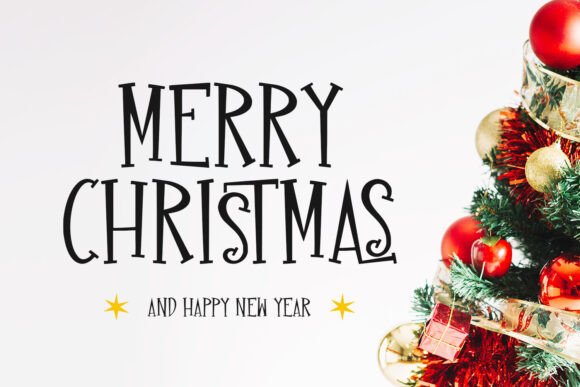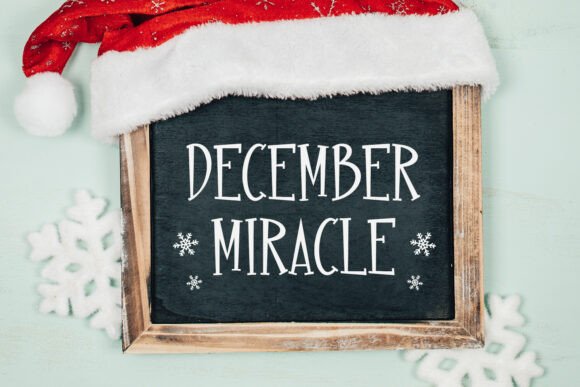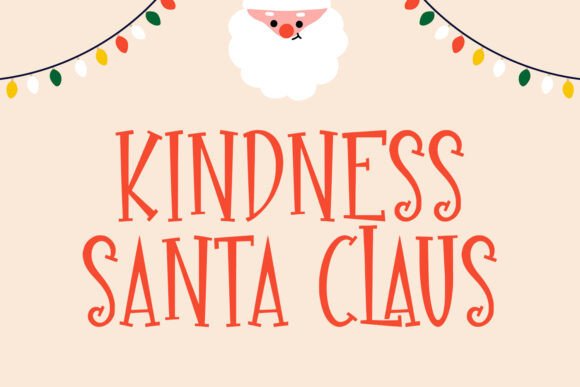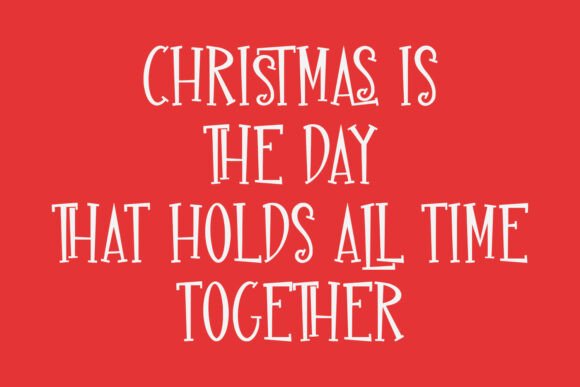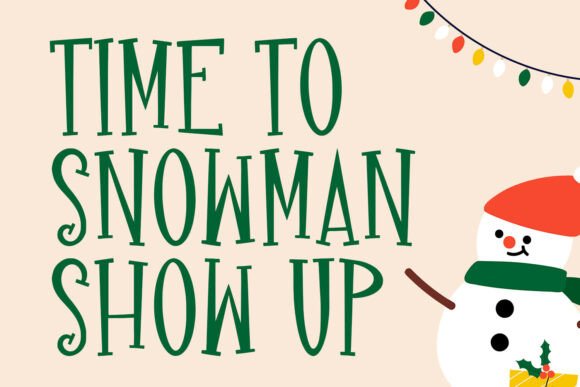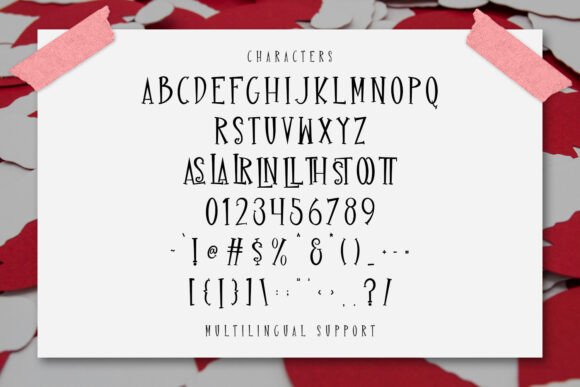
Clechas Font: Add a Touch of Christmas Magic to Your Designs
Are you looking for a font that embodies the spirit of Christmas? Look no further than Clechas Font! This fun and festive display font is perfect for adding a touch of holiday cheer to your designs. With its playful, bold letters and cheerful style, Clechas Font is sure to bring a smile to anyone’s face.
What is Clechas Font?
Clechas Font is a Christmas display font that features bold, playful letters with a joyful holiday style. The font is designed to evoke the feeling of a festive holiday season, with a carefree and cheerful vibe that’s perfect for Christmas cards, decorations, and other holiday-themed designs.
Key Features of Clechas Font
- Playful and Bold Letters: Clechas Font features bold, playful letters that are sure to grab attention. The font’s letters are designed to be fun and carefree, making it perfect for holiday designs that need a touch of whimsy.
- Cheerful Holiday Style: The font’s holiday style is cheerful and festive, making it perfect for Christmas cards, decorations, and other holiday-themed designs.
- Easy to Read: Despite its playful style, Clechas Font is easy to read, making it perfect for use in a variety of designs, from Christmas cards to holiday posters.
Uses for Clechas Font
Clechas Font is a versatile font that can be used in a variety of designs, including:
- Christmas Cards: Add a touch of holiday cheer to your Christmas cards with Clechas Font. The font’s playful style is perfect for creating fun and festive cards that are sure to bring a smile to the recipient’s face.
- Holiday Decorations: Use Clechas Font to create festive holiday decorations, such as garlands, banners, and signs.
- Posters and Flyers: Clechas Font is perfect for use in holiday posters and flyers, adding a touch of whimsy and fun to your designs.
- Social Media Graphics: Use Clechas Font to create festive social media graphics, such as holiday-themed Facebook posts and Instagram stories.
Tips for Using Clechas Font
Here are a few tips for using Clechas Font in your designs:
- Use it Sparingly: While Clechas Font is a fun and festive font, it can be overwhelming if used too much. Use it sparingly to add a touch of holiday cheer to your designs.
- Pair it with Other Fonts: Clechas Font pairs well with other fonts, such as serif and sans-serif fonts. Experiment with different font combinations to find the perfect look for your design.
- Experiment with Colors: Clechas Font looks great in a variety of colors, from traditional holiday colors like red and green to more modern colors like blue and purple. Experiment with different colors to find the perfect look for your design.
Clechas Font is a fun and festive Christmas display font that’s perfect for adding a touch of holiday cheer to your designs. With its playful, bold letters and cheerful holiday style, Clechas Font is sure to bring a smile to anyone’s face. Whether you’re designing Christmas cards, holiday decorations, or social media graphics, Clechas Font is a great choice. So why not give it a try and add a touch of Christmas magic to your designs?